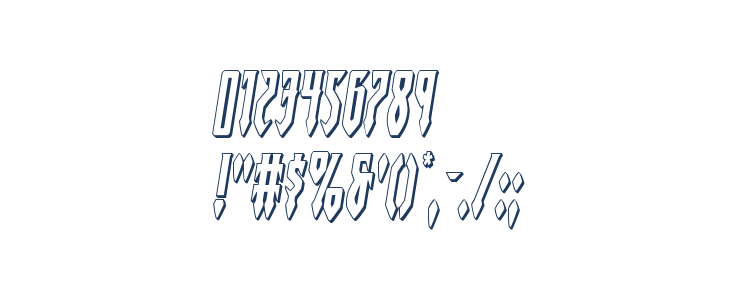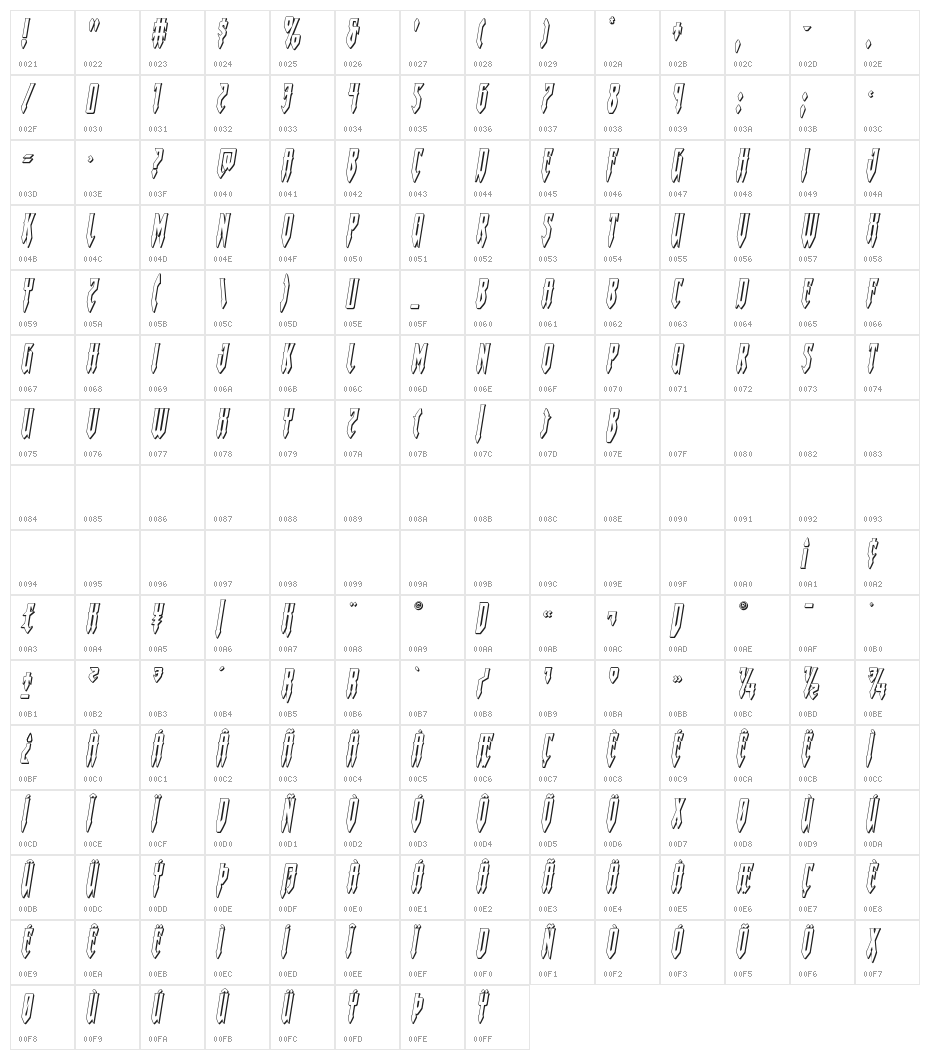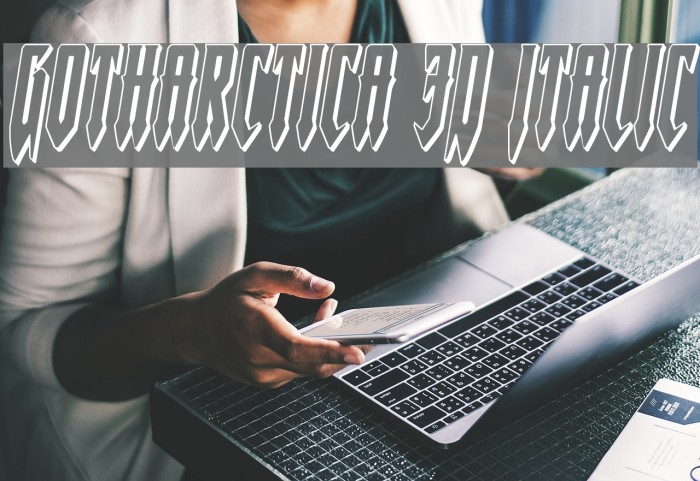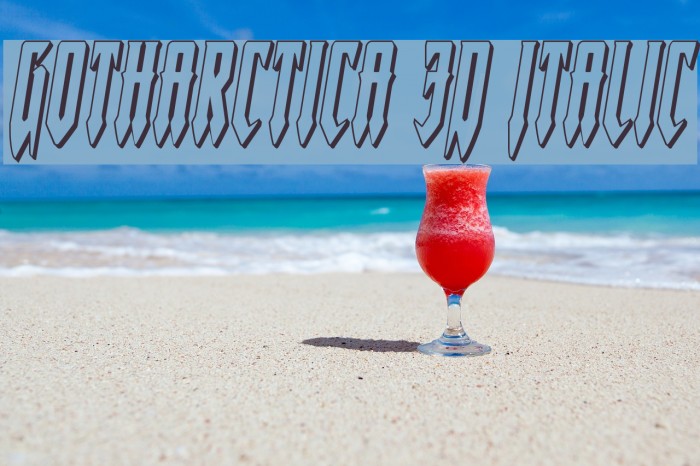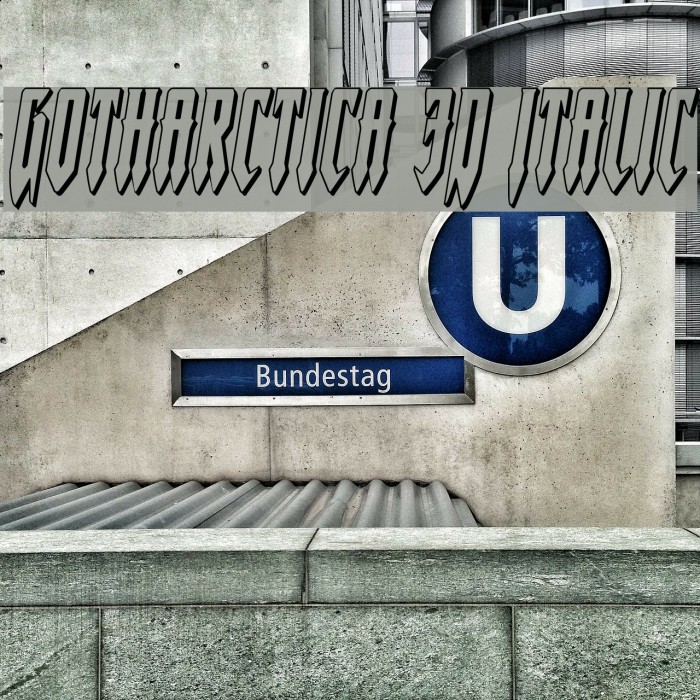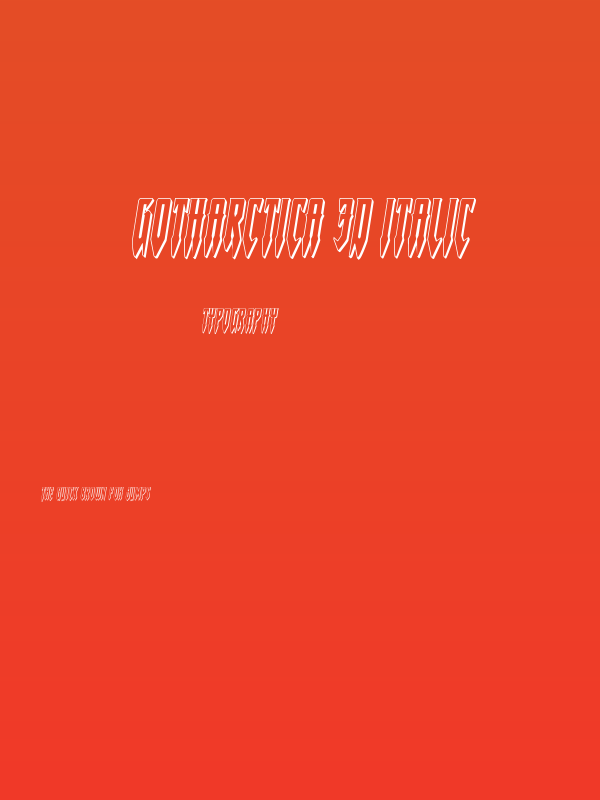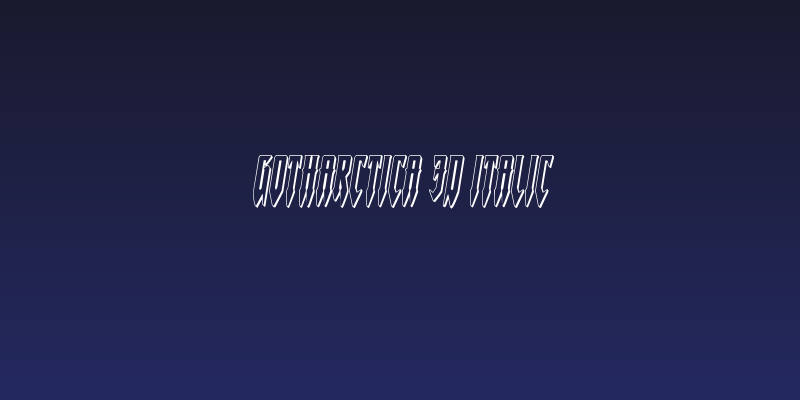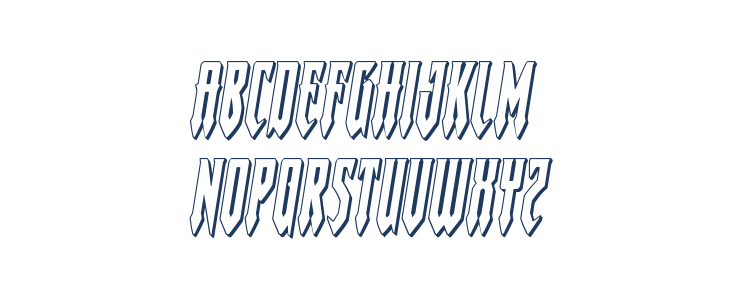
Gotharctica 3D Italic Font
Gotharctica 3D Italic Description
This font features a bold, three-dimensional design with a strong italic slant, giving it a dynamic and futuristic appearance. The characters are sharply angular, with a distinct geometric style that creates a sense of movement and depth. The 3D effect is achieved through the use of shadowing, which adds a layer of complexity and visual interest. The uppercase and lowercase letters maintain a consistent style, while the numerals and special characters are designed to match the overall aesthetic. This font is ideal for projects that require a bold and eye-catching display, such as posters, logos, and headlines.
| Overall Style | Futuristic, Dynamic |
| Proposed Projects | Ideal for posters, logos, headlines, and any design requiring a bold, eye-catching display. |